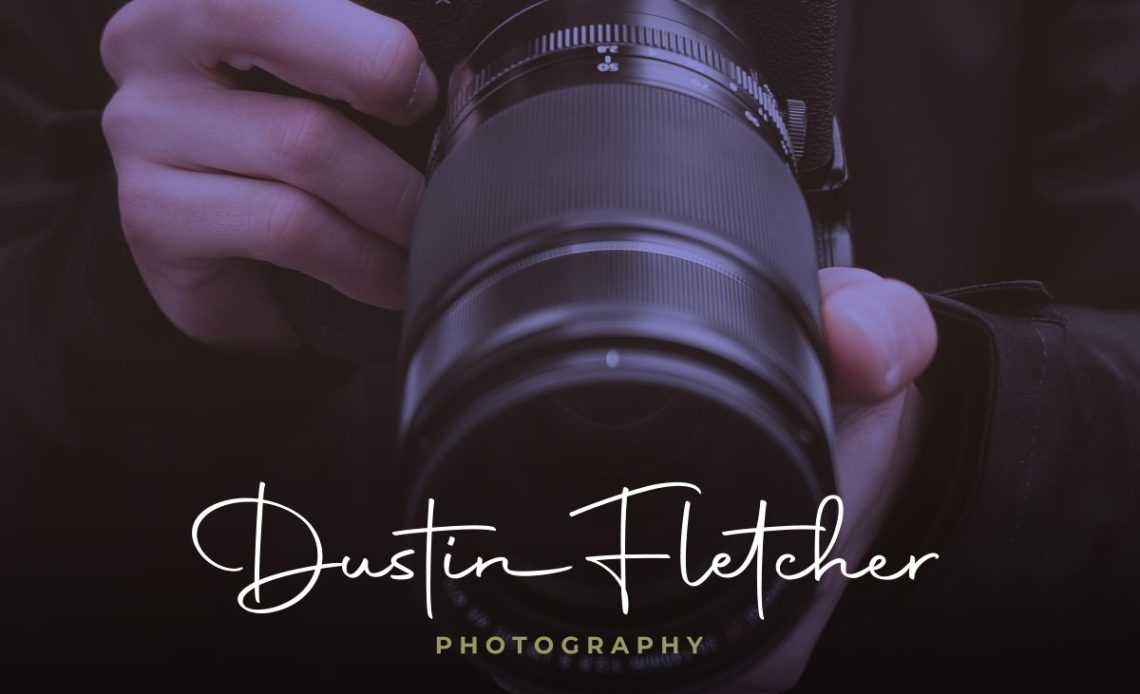
Are you looking for a signature font that can elevate your personal branding or add charm to your design projects? Autography - Signature Font is the answer. Created by Hendra Pratama, this script font is perfect for creating logotypes, autographs, or digital signatures for your personal name card or brand.
Autography's smooth shapes and upright calligraphic style exude elegance and professionalism, making it the best font for wall quotes. Its features include Stylistic Alternates, Stylistic Set 01-06, Ligatures, Contextual Alternates, and Swashes, which allow you to create unique and creative designs with ease.
Whether you're designing cosmetics posters, fashion magazines, book covers, movie titles, or simple quotes, Autography - Signature Font is a versatile option that supports over 40 Basic Latin languages. Its captivating and emotional appeal is perfect for any project that requires a personal touch.